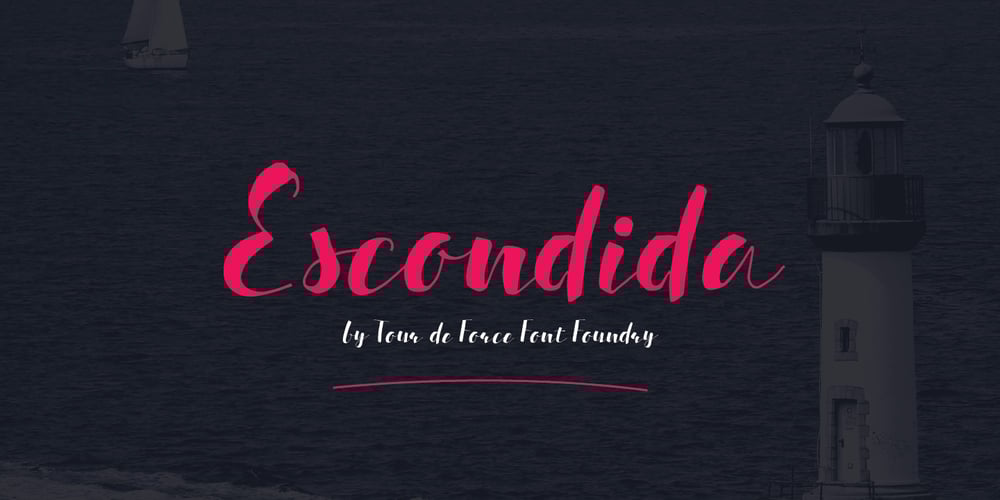
Escondida
Escondida font
Escondida Font Family was designed by Dusan Jelesijevic and published by Tour De Force. Escondida contains 1 styles and family package options. Simple, elegant and high contrasted typeface called Escondida simply fits into all design projects. Contains 390 glyphs and among them you’ll find 22 ligatures as well.